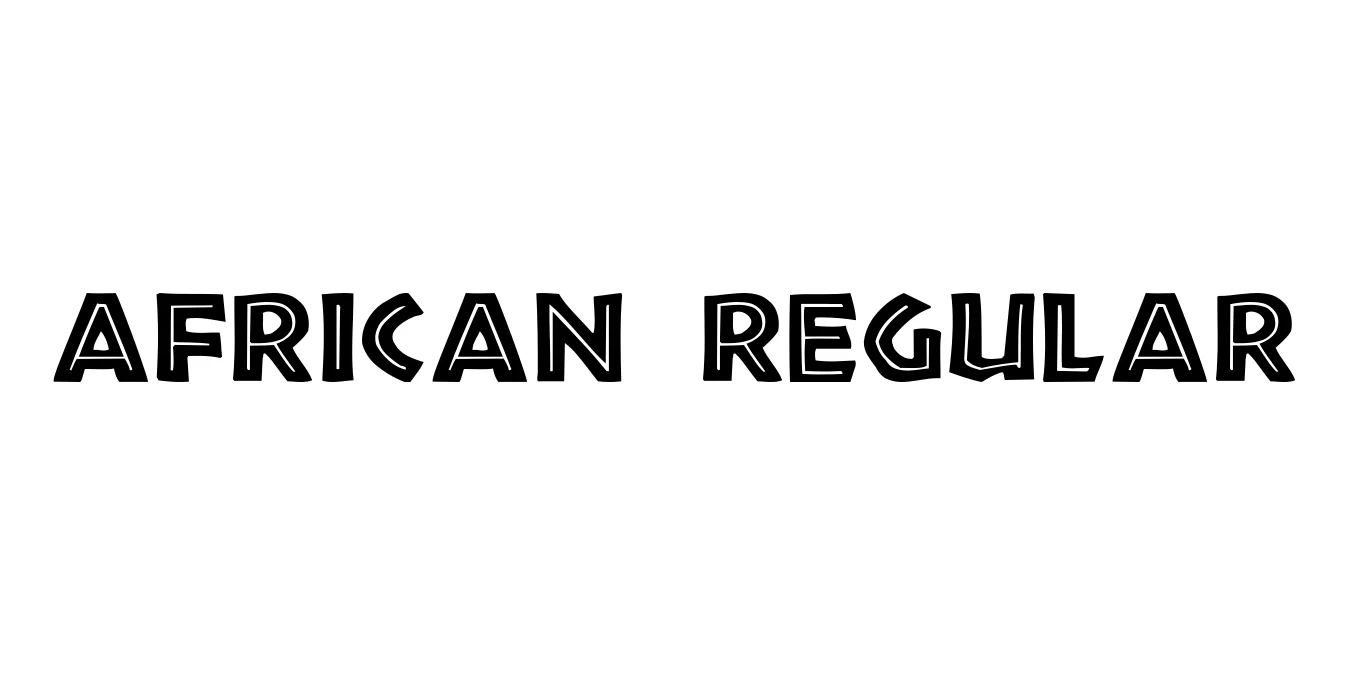
African Regular
Designed by Allen R. Walden
African Regular is a distinct display typeface that draws heavy inspiration from traditional African art, wood carvings, and geometric tribal patterns. It was designed to capture the rhythmic and bold aesthetics found in the cultural artifacts of the continent. The font features thick, blocky letterforms with negative space cutouts that mimic the look of hand-etched symbols, making it a powerful choice for projects requiring a sense of heritage and raw energy.
Throughout its history, this font has become a staple for designers looking to evoke an ethnic or cultural atmosphere. Its unique structural integrity ensures that it remains legible even with its intricate detailing. Whether used for film posters, book covers, or branding for cultural festivals, African Regular provides a visual language that is both ancient and modern, bridging the gap between historical influence and contemporary digital design.
African Regular Best Uses
Ideal for cultural organizations, ethnic food packaging, and heritage-based logos.
Perfect for book covers, magazine headings, and travel brochures focusing on African tourism.
Great for promotional posters for music festivals and art exhibitions.
Works well for bold statement T-shirts and textile pattern designs.